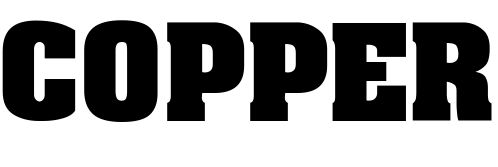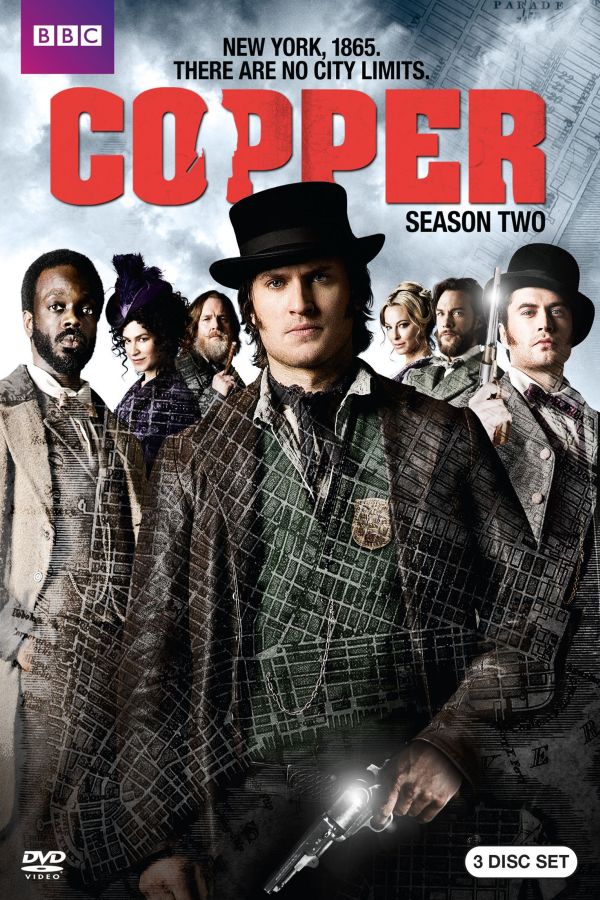
Copper Font
CrimeCopper is a historical fiction series set in 1860s New York City, following the life and crime-solving journey of an Irish-American police detective in the Five Points neighborhood.
The TV show's logo is likely inspired by the Aachen typeface, which was created by Letraset type director Colin Brignall in the 1960s. You can find more information about it here.